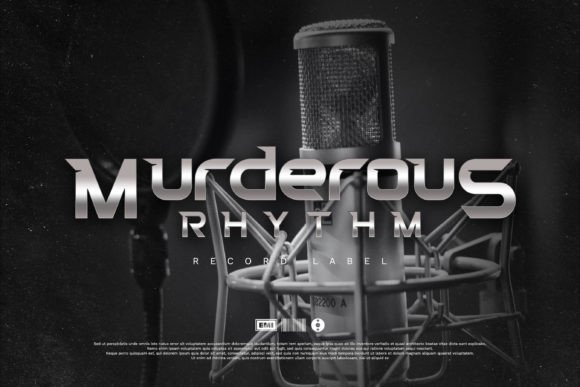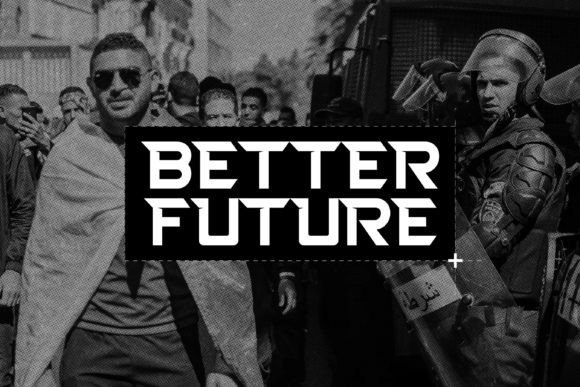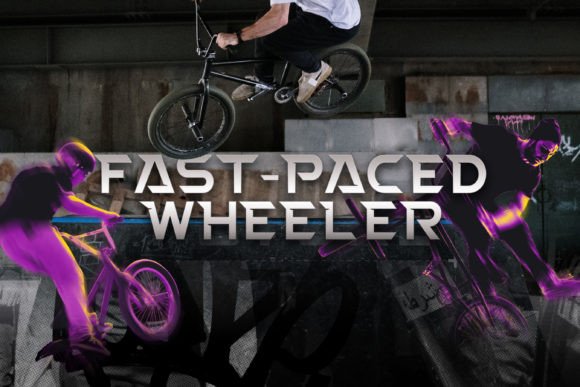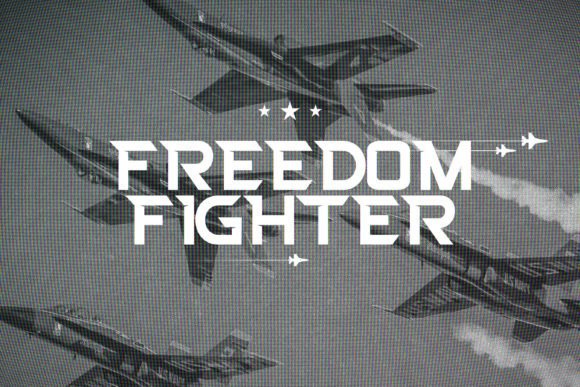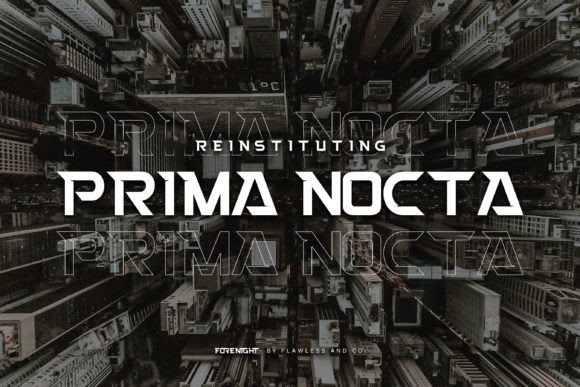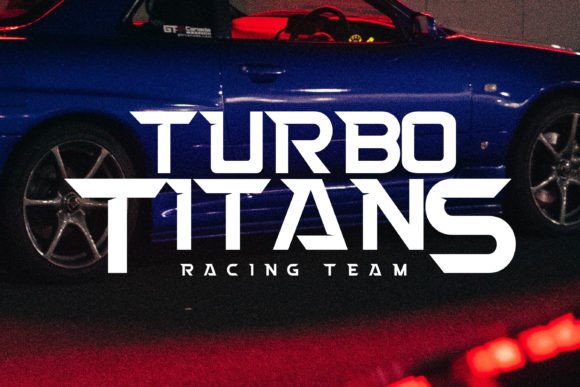
Introduction to Forenight Font
Forenight is a dynamic and modern sport font designed to capture the spirit of athleticism and energy.
With its bold and sleek letterforms, Forenight brings a sense of power and movement to your sports-related designs Inspired by the speed and intensity of athletic events, this font is perfect for sports team logos, jerseys, posters, and any design that aims to convey a sense of strength and competitiveness.
Key Features of Forenight Font
Forenight Font offers exceptional quality and versatility, making it a valuable addition to your design toolkit. Whether you’re creating for personal projects or commercial use, Forenight Font delivers professional results.